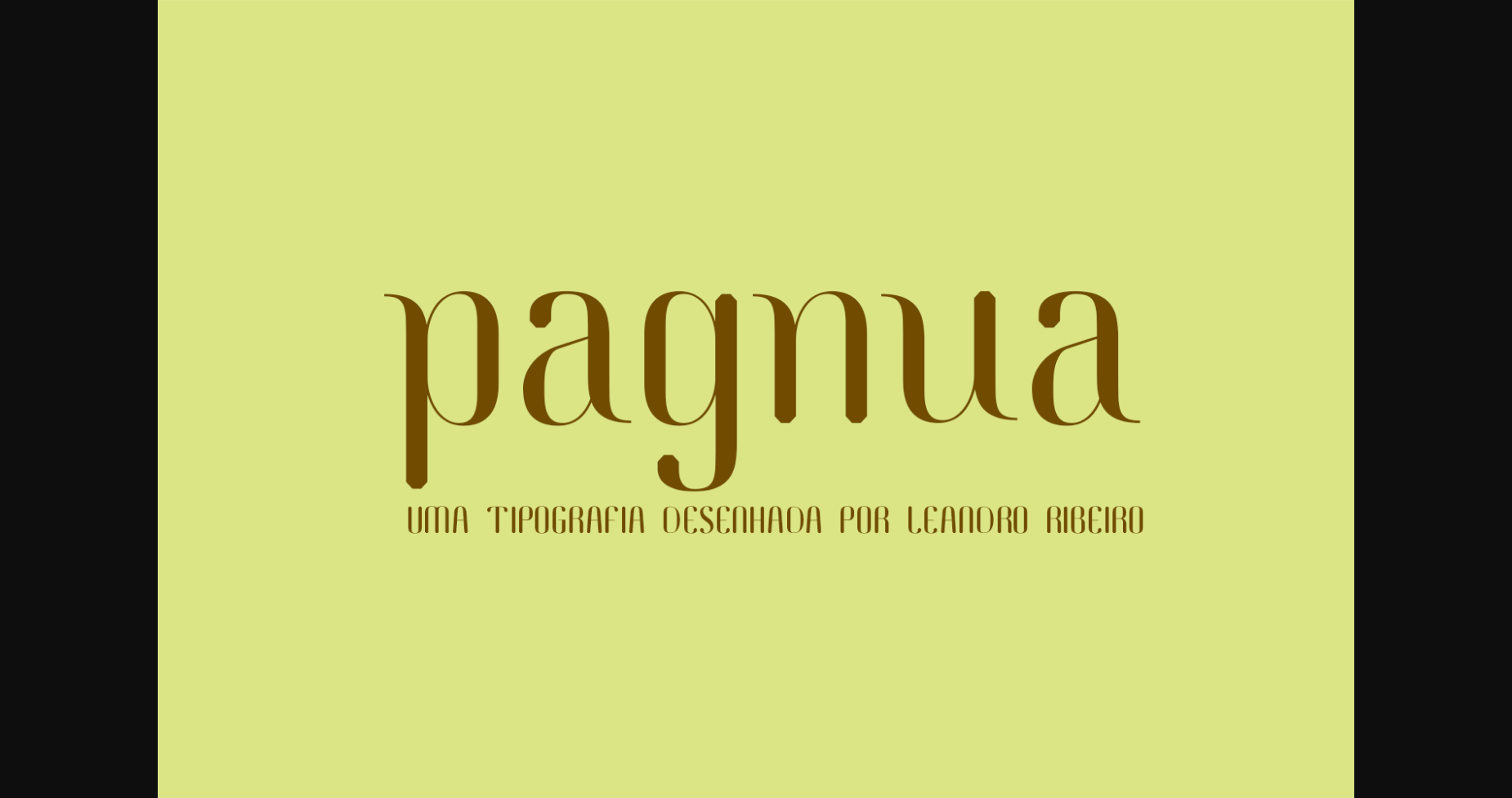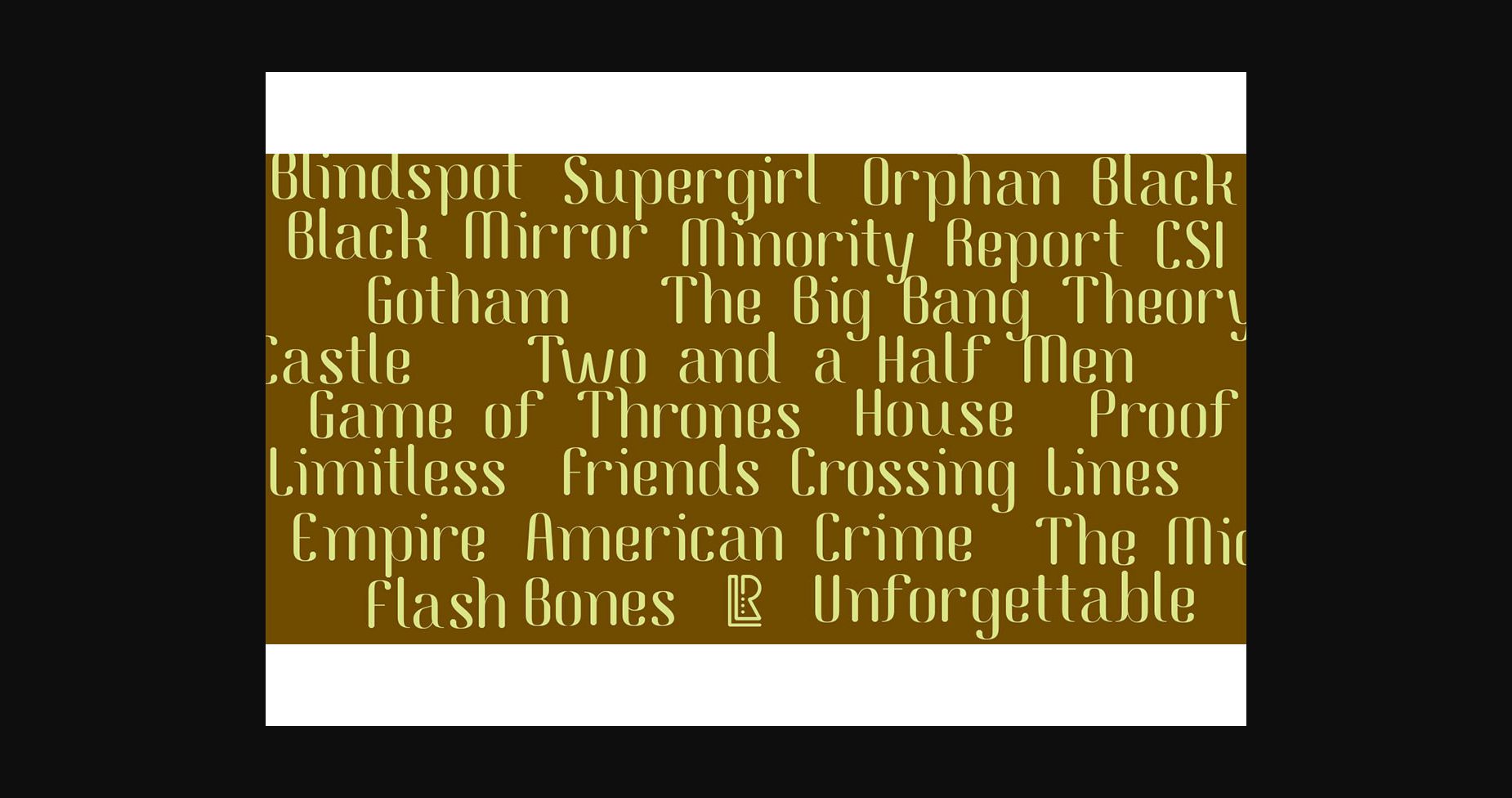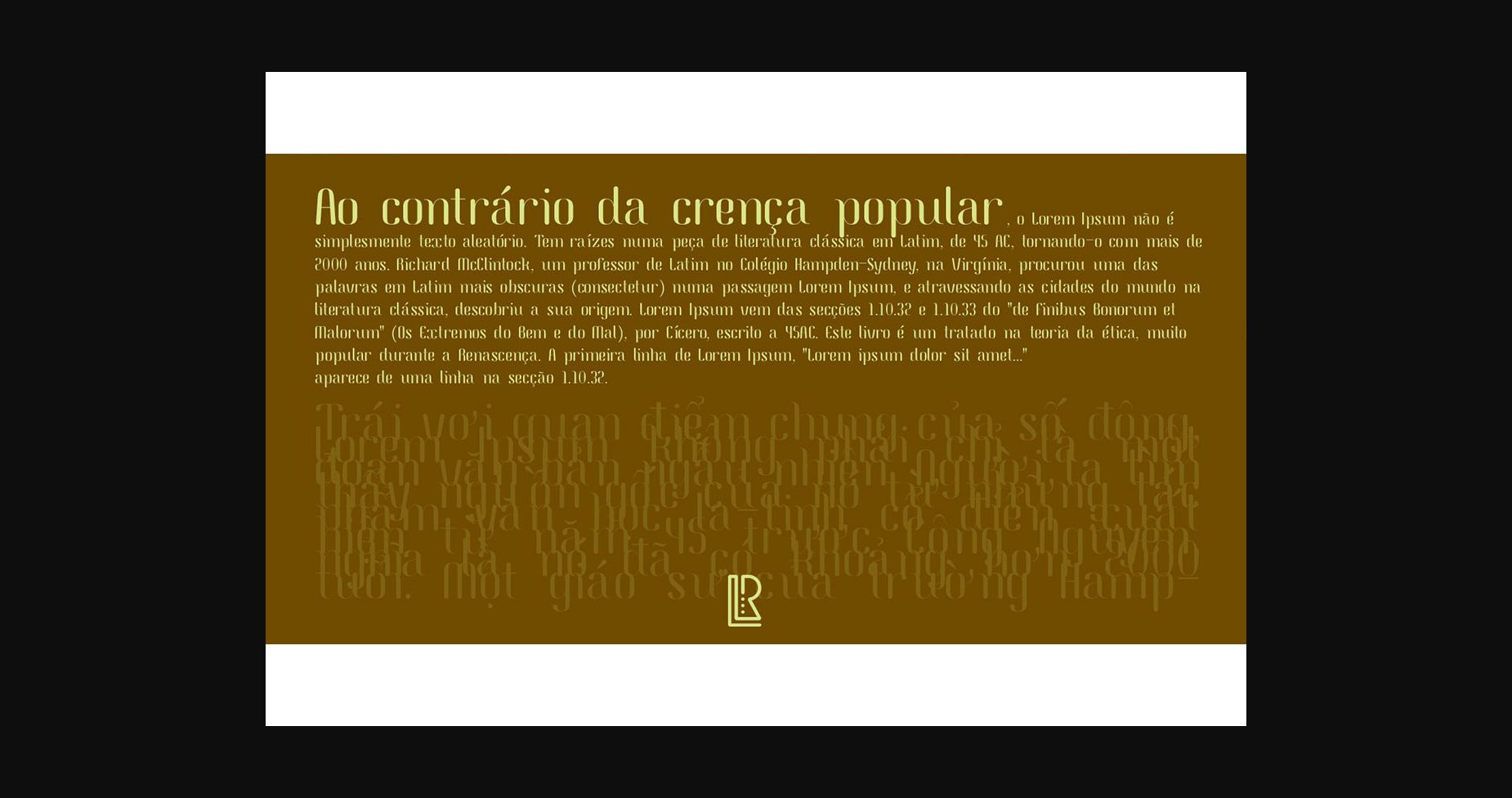
Pagnua Font
About Pagnua Font
Pagnua is a cool and adaptable sans serif font. Whatever the topic, this font will be a wonderful asset to your font library, as it has the potential to enhance any creation.